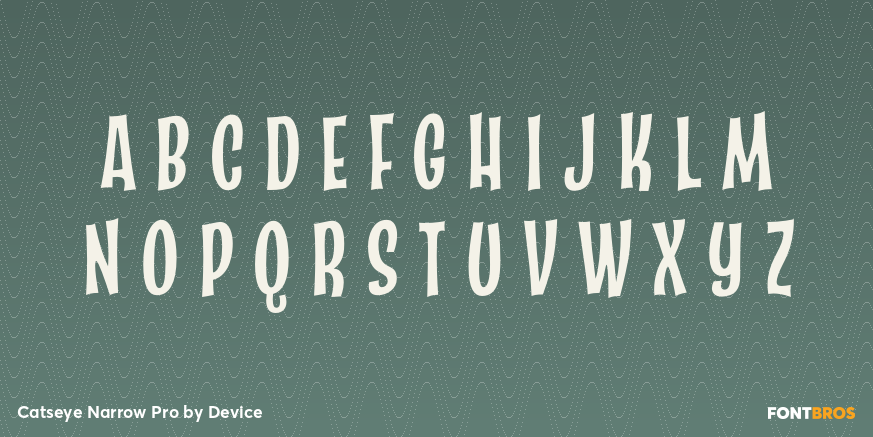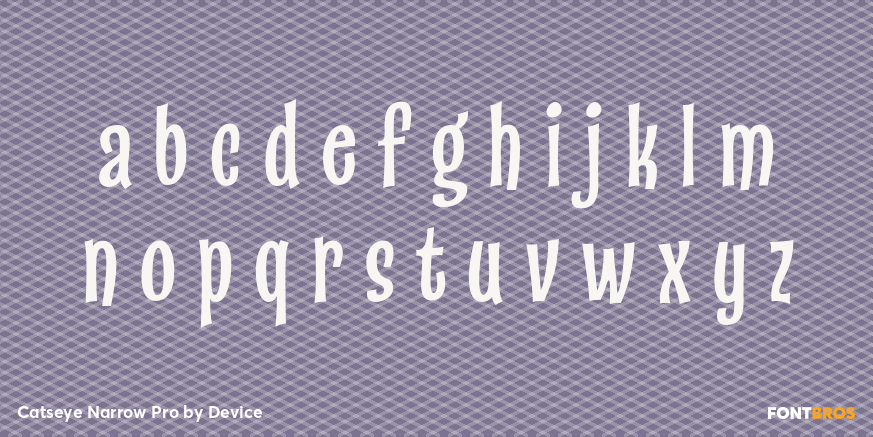
Catseye Narrow Pro
Font Family by Device
A casual sans that harks back to the very English style of book jacket and poster art of the late 50's and early 60's.
The turned-in terminals are reminicent of Stephenson Blake's Grotesque 9, and the italic provides unique cursive versions of the lowercase characters.
Available in a ?narrow? version as well as two standard weights, this face lends itself to the wider letterspacing that evokes hot metal.